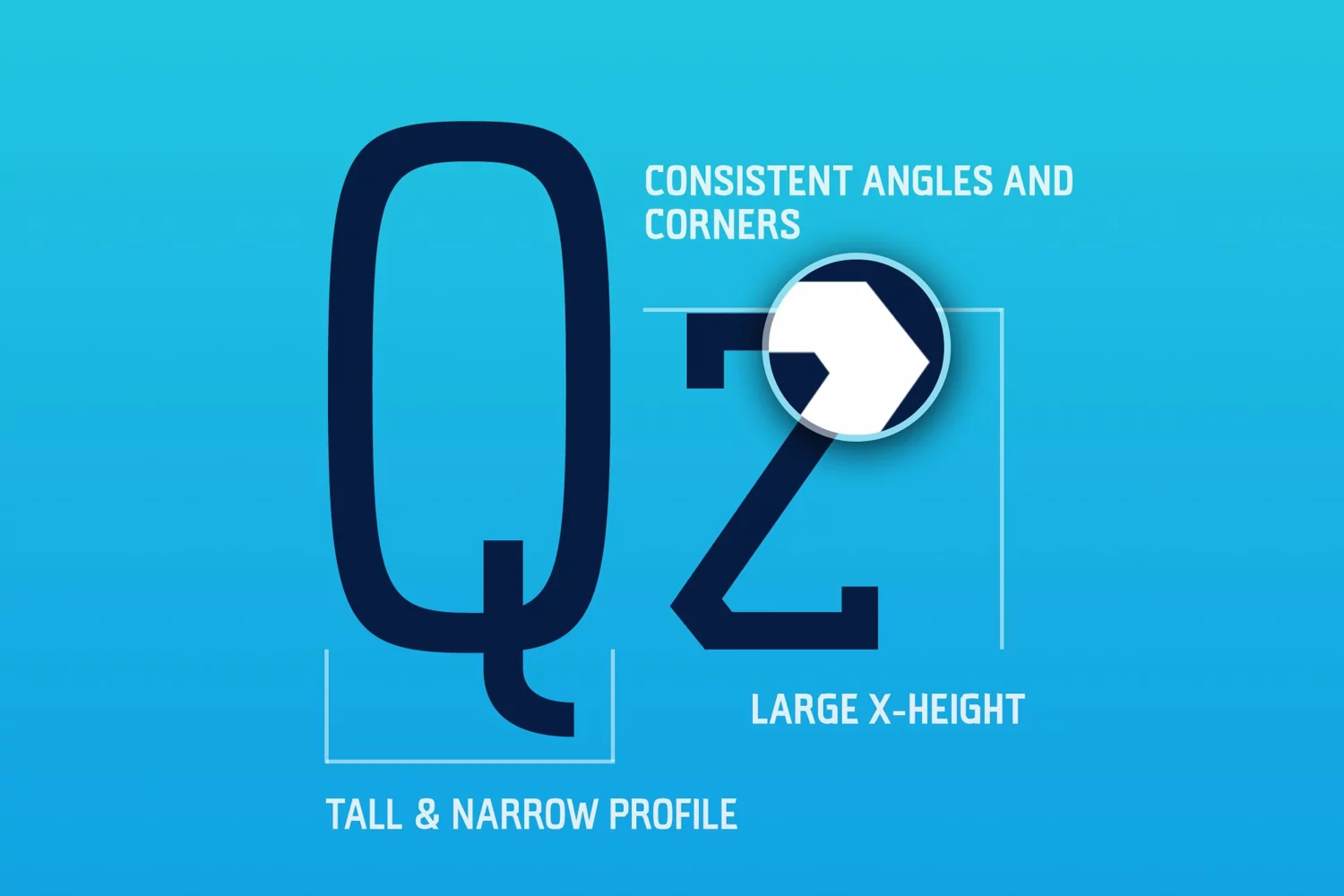
Beepo FREE Geometric Font
Introducing Beepo, a curiously friendly geometric sans-serif.
Beepo is a quirky typeface that features tall, narrow characters, consistent angles and corners, a large x-height, and smooth curves to offset the sharp design system with some humanist personality. The typeface's large aperture and x-height create a modern aesthetic, making Beepo a great typeface for tech-oriented brands and products.
Beepo comes included with six weight variations (extra light to extra bold), superiors, inferiors, symbols, diacritics, and fractions. Beepo works well for wordmark logos (especially when multiple weights are paired together), headlines and large text, body copy and more!